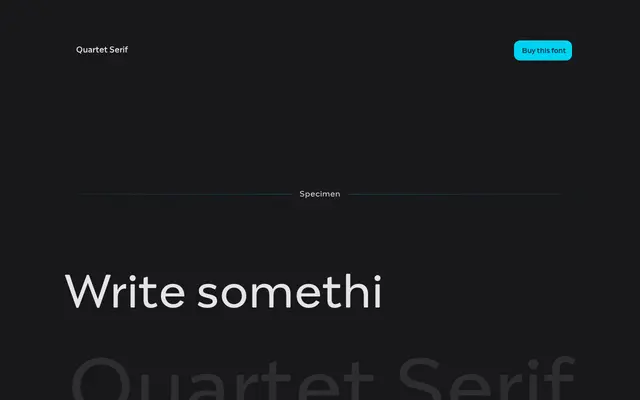
Quartet Serif
Capitalics · Mateusz Machalski
A four-weight serif family with matching italics from Polish type designer Mateusz Machalski, aimed at branding and editorial applications.
Eight styles span Regular through Bold, each paired with an italic, giving the family enough range for body text and display use within brand contexts. Designed by Mateusz Machalski, co-founder of Capitalics and a specialist in branding, the family reflects a practical, professionally oriented approach to contemporary serif design. Pricing is per-style or as a discounted full family bundle in PLN, USD or EUR.
Presented as a serif family with no strong historical revival reference; the range of weights and italics suggests a general-purpose contemporary serif intended for branding and editorial use.